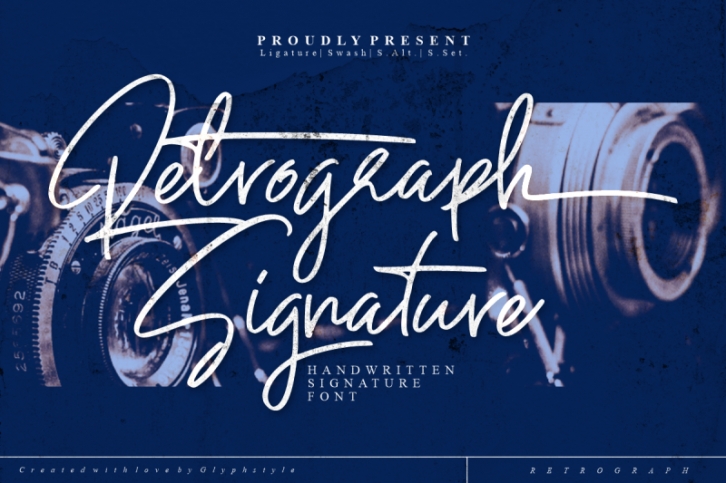
Retrograph Handwritting FONT Download
Retrograph is a handwritten font that looks neat and clear. Consistent lines make this font neat and beautiful.
Retrograph is perfect for branding projects, logos, wedding designs, social media posts, advertisements, product packaging, product designs, labels, photography, watermarks, invitations, stationery, and any project that requires a sense of handwritten-signature.
- Font feature
• Uppercase,
• Lowercase,
• Numerals & Punctuations,
• Stylistic Alt, Stylistic Set, Swash
• Ligature,
• Multilanguage